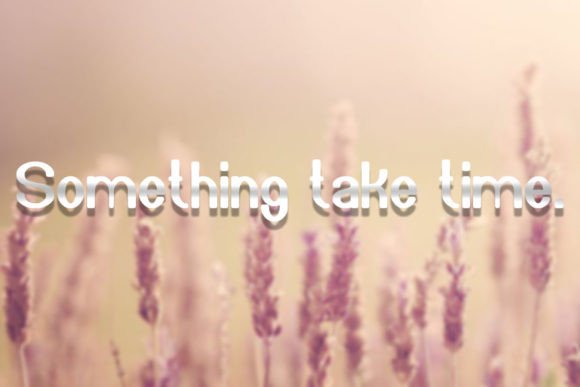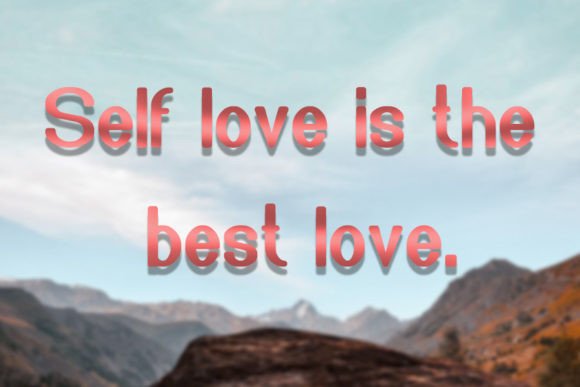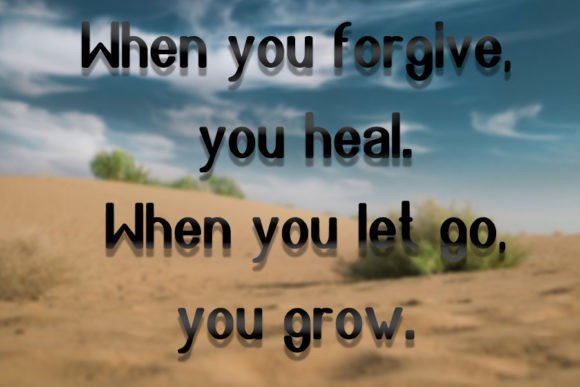
Introducing Academy Font: The Ultimate Clean Sans-Serif Font for Creative Projects
In the world of design, typography plays a crucial role in conveying messages, expressing creativity, and building brand identities. When it comes to selecting the perfect font for a project, designers often look for clean, versatile, and highly legible options. This is where the Academy font comes into play – a stunning clean sans-serif font designed to elevate your branding projects, logos, social media posts, advertisements, and more.
What is Academy Font?
Academy font is a modern, clean sans-serif typeface that exudes simplicity, elegance, and sophistication. Its minimalist design makes it an excellent choice for designers and crafters looking for a font that can adapt to various creative projects. Whether you’re working on a logo, product packaging, wedding invitation, or social media post, Academy font is the perfect companion to help you achieve your design goals.
Key Features of Academy Font
- Clean and Minimalist Design: Academy font boasts a clean and minimalist design, making it perfect for projects that require a simple yet elegant typography.
- Sans-Serif Style: The font’s sans-serif style ensures excellent legibility, even at small font sizes, making it ideal for body text and captions.
- Highly Versatile: Academy font can be used for a wide range of creative projects, from branding and logos to social media posts, product packaging, and more.
- Easily Readable: The font’s clean design and generous letter spacing ensure that your text is easily readable, even on small screens and devices.
Use Cases for Academy Font
Academy font is an incredibly versatile typeface that can be used for various creative projects. Here are some of the most popular use cases:
- Branding Projects: Use Academy font to create a strong brand identity that exudes professionalism and sophistication.
- Logos: The font’s clean design makes it perfect for logos that require a simple yet distinctive typography.
- Social Media Posts: Academy font is ideal for social media posts, ensuring that your message is conveyed clearly and effectively.
- Advertisements: The font’s clean design and excellent legibility make it perfect for advertisements that require a clear and concise message.
- Product Packaging: Use Academy font to create eye-catching product packaging that stands out on store shelves.
- Wedding Invitations: The font’s elegant design makes it perfect for wedding invitations, adding a touch of sophistication to your special day.
- Product Designs: Academy font can be used for product designs, such as labels, tags, and more.
- Photography: Use the font as a watermark or for photo captions, adding a professional touch to your photography work.
- Stationery: Academy font is ideal for stationery, including business cards, letterheads, and more.
Why Choose Academy Font?
With so many fonts available, why choose Academy font for your creative projects? Here are some compelling reasons:
- Unique and Modern Design: Academy font boasts a unique and modern design that sets it apart from other fonts.
- Excellent Legibility: The font’s clean design and generous letter spacing ensure excellent legibility, even at small font sizes.
- Highly Versatile: Academy font can be used for a wide range of creative projects, making it a valuable addition to your font library.
| Font Name | Academy Font |
| Author | SoulusYid |
In conclusion, Academy font is an exceptional clean sans-serif font that offers a unique combination of style, versatility, and legibility. Whether you’re a designer, crafter, or DIY enthusiast, this font is perfect for a wide range of creative projects. With its clean design, excellent legibility, and highly versatile nature, Academy font is sure to become a staple in your font library. So why wait? Download Academy font today and take your creative projects to the next level!